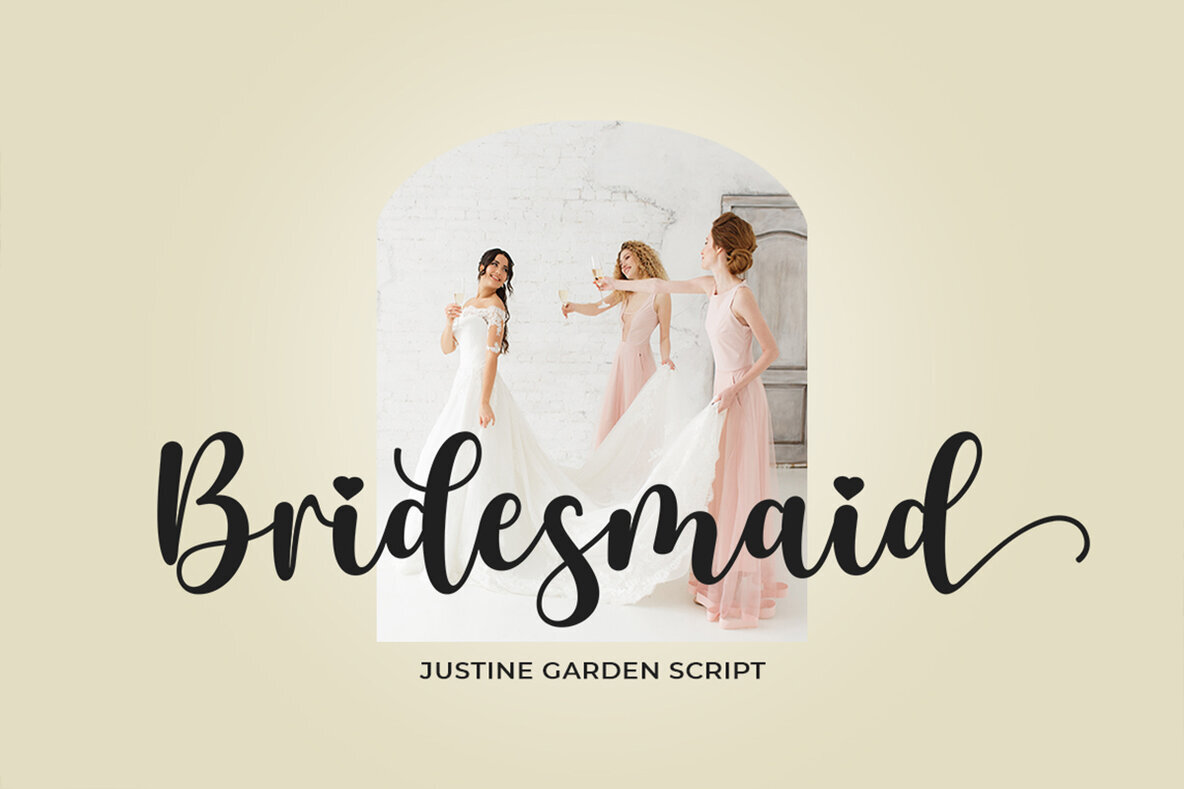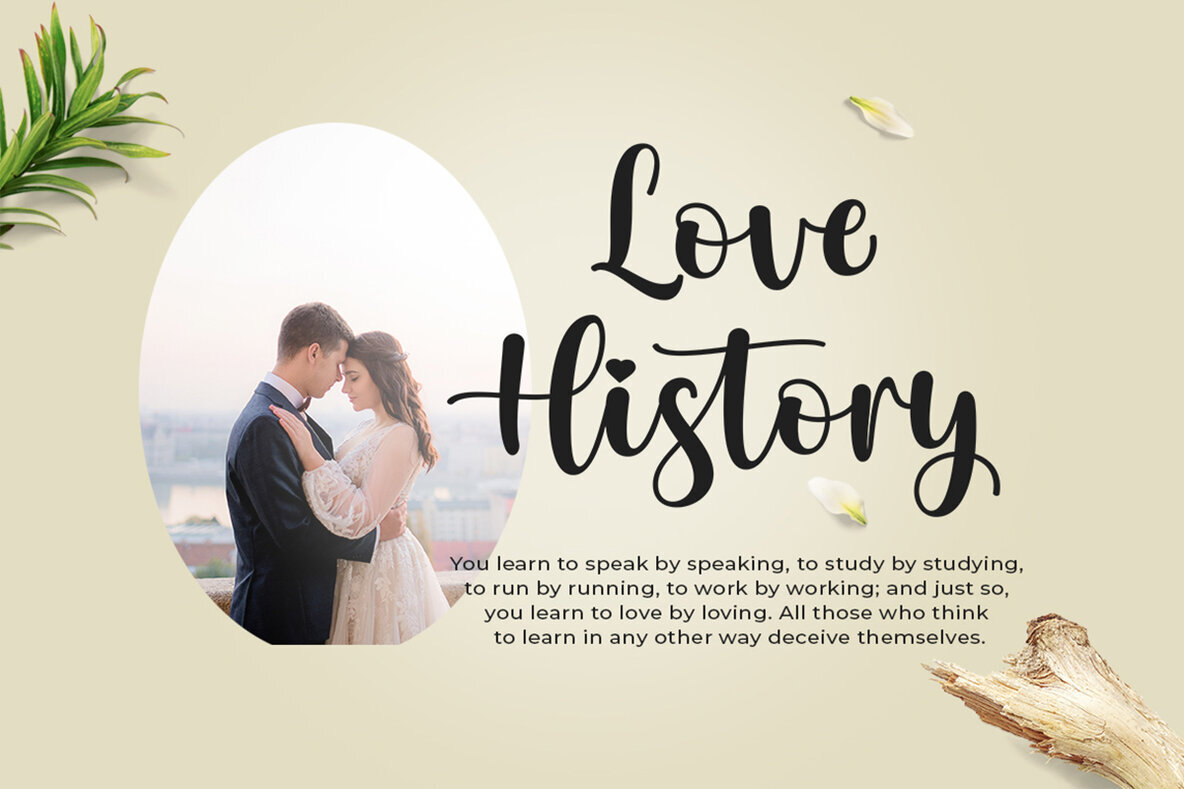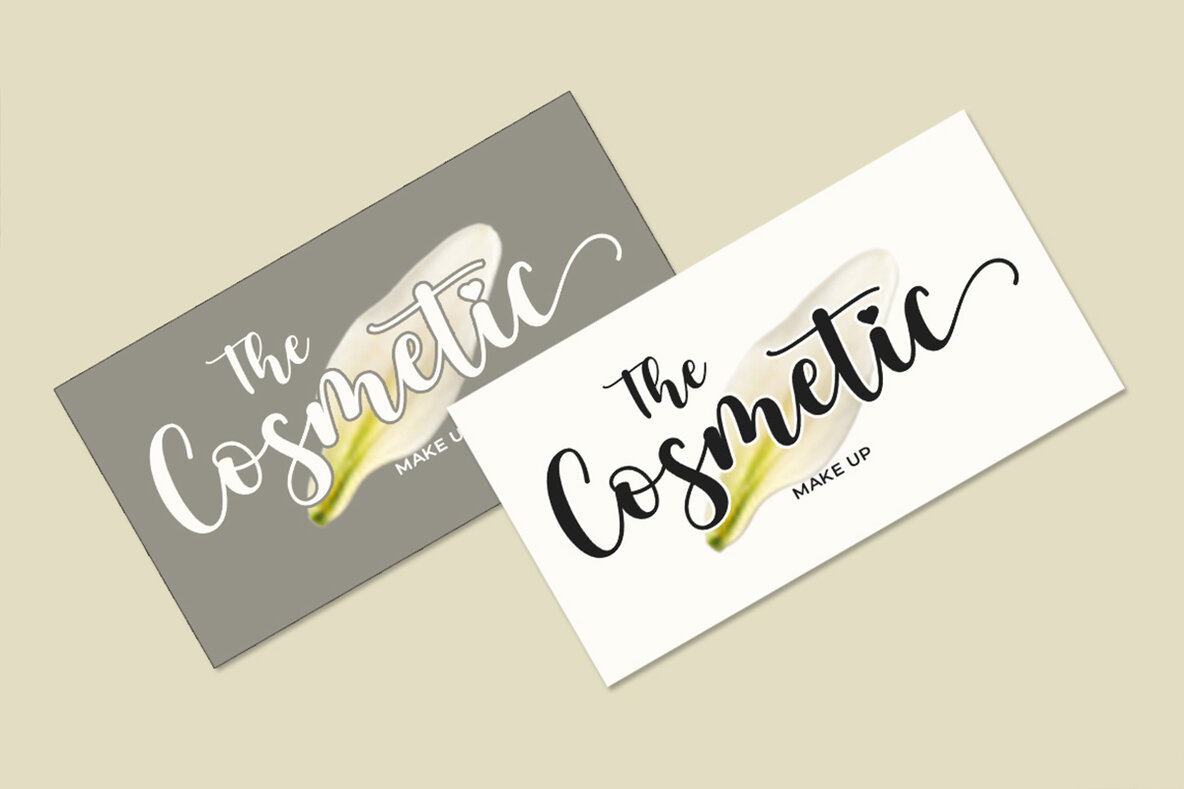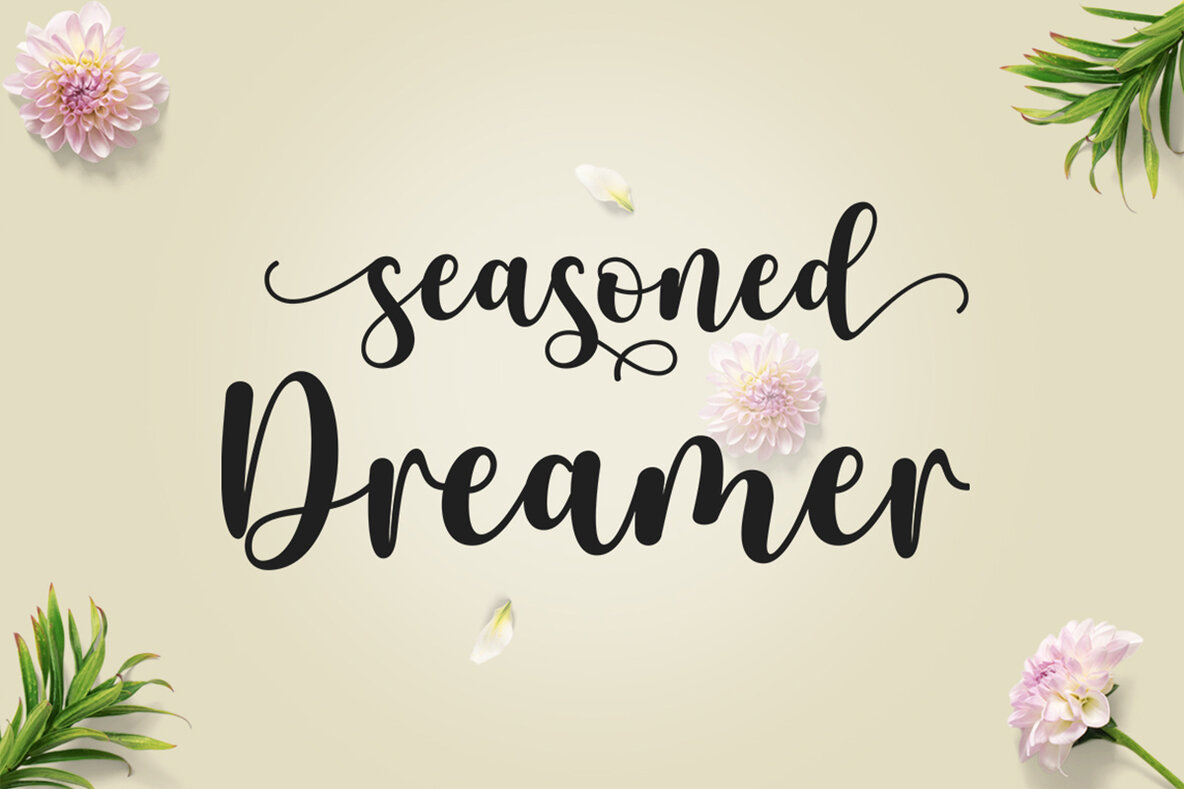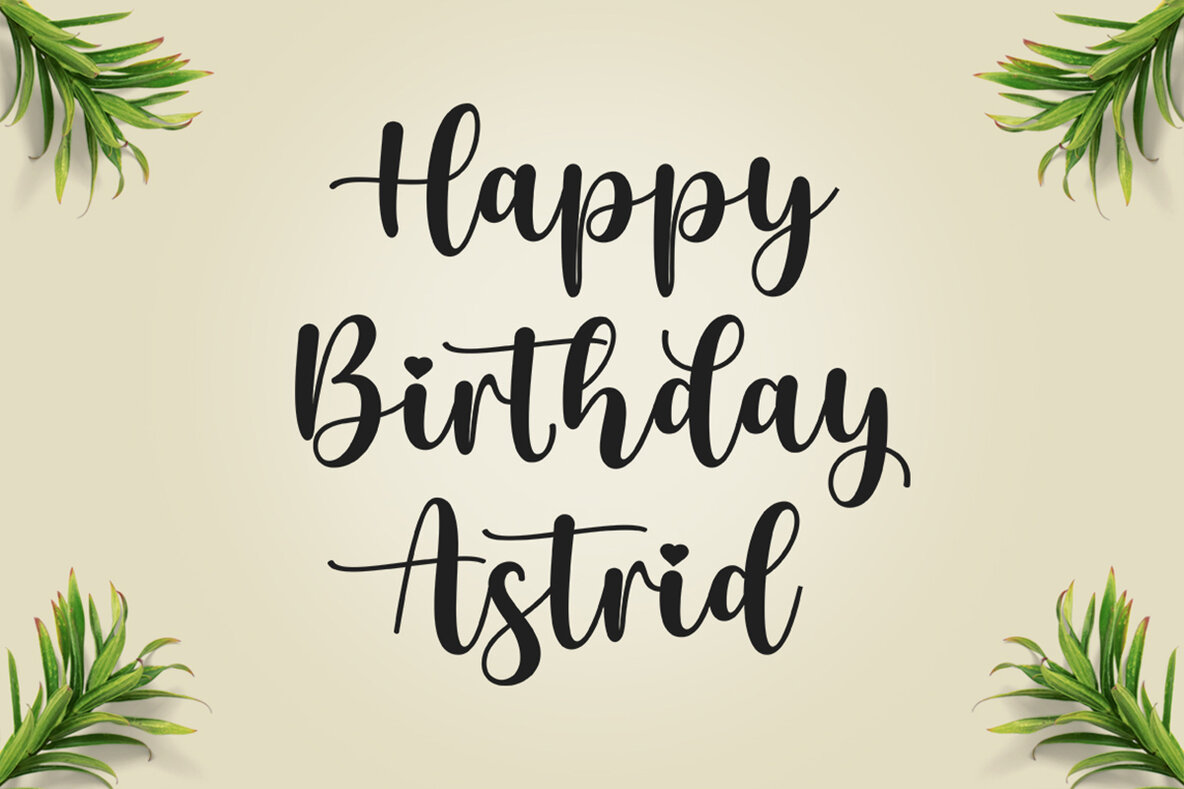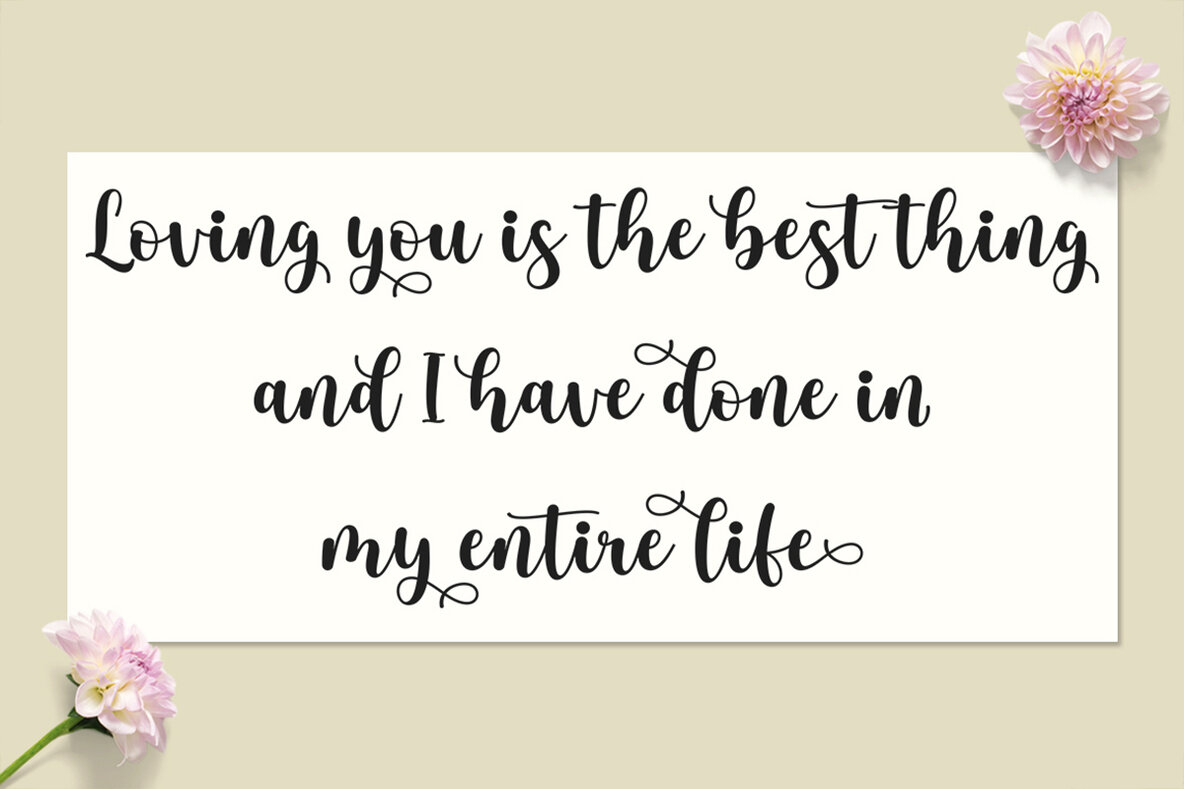
Justine Garden Script is a beautiful modern calligraphy typeface, I hope you will be interested in this font, if you want to use it for your work.
This font can be used easily and simply because there are many features in it. contains a complete set of lowercase and uppercase letters, assorted punctuation, numbers, and multilingual support.
Justine Garden is very suitable for market designs being developed today, this font has a stylish, trendy, natural and soft font, with this font you can take advantage of opportunities every moment is a great way to highlight the celebration of the best of the party, because this font will be an advocate for the purposes such as wedding invitations, branding, parties, graduations, birthdays, gatherings, etc.